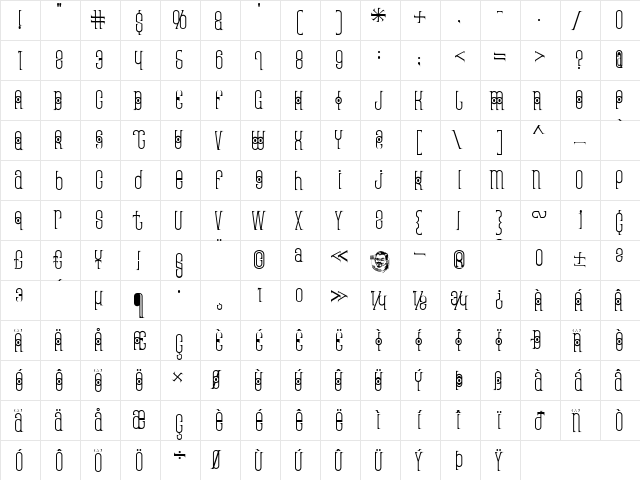
ThaiPedicure Regular
ThaiPedicure is a composed and adaptable typeface that performs quietly and consistently across a wide range of design contexts.